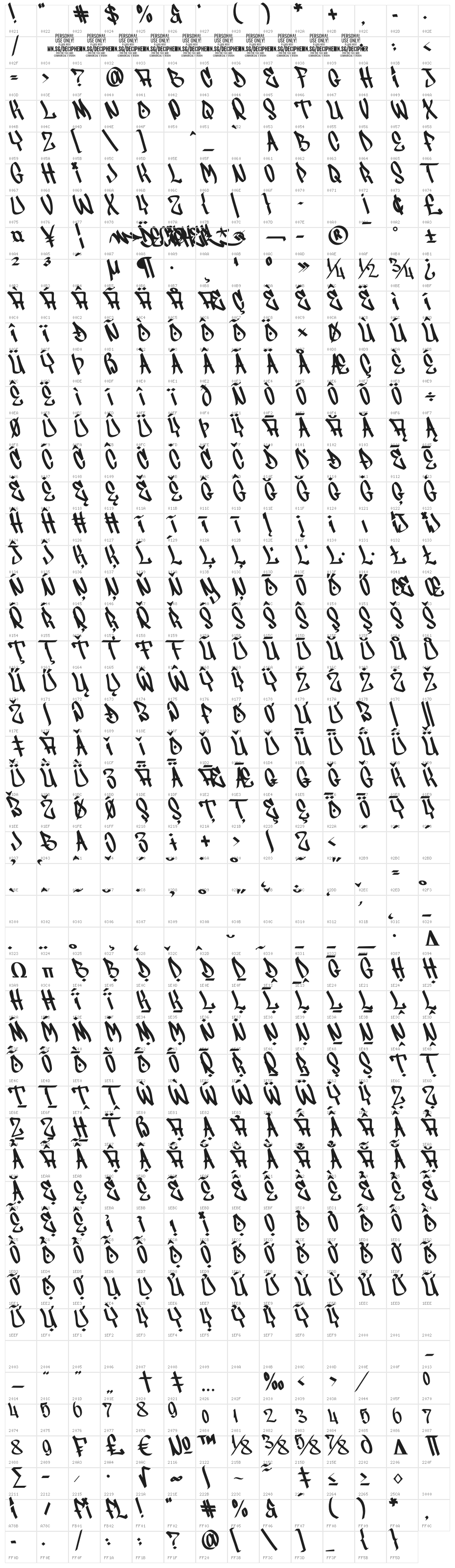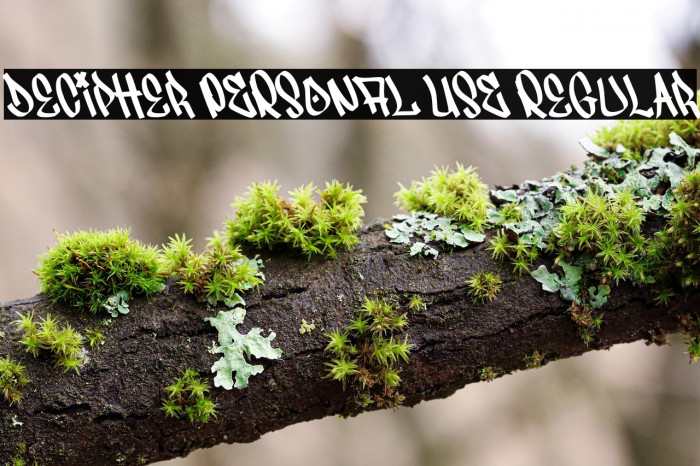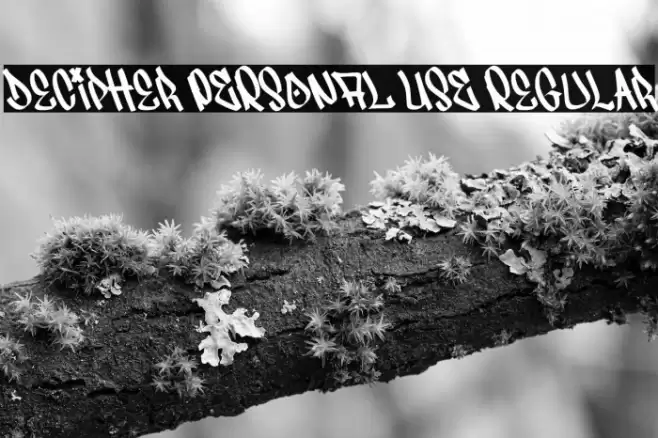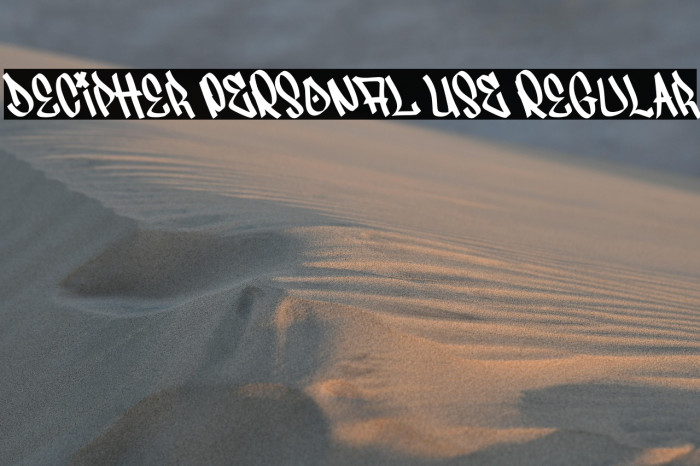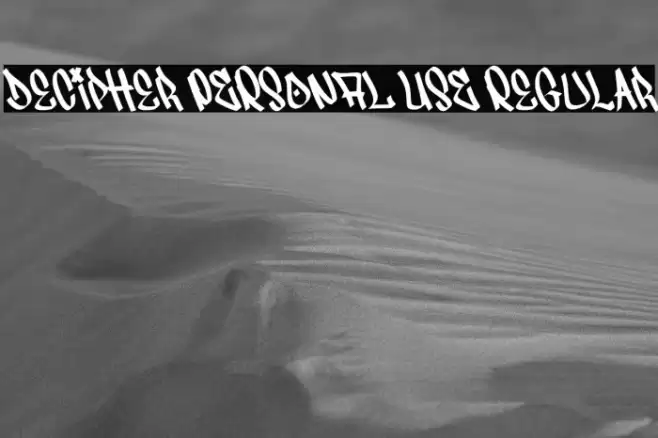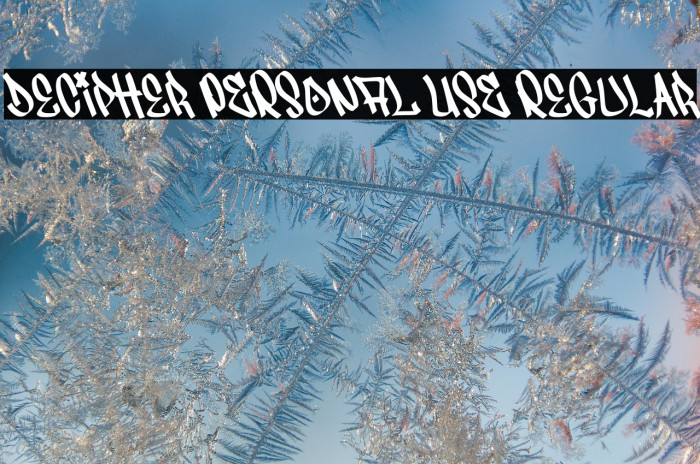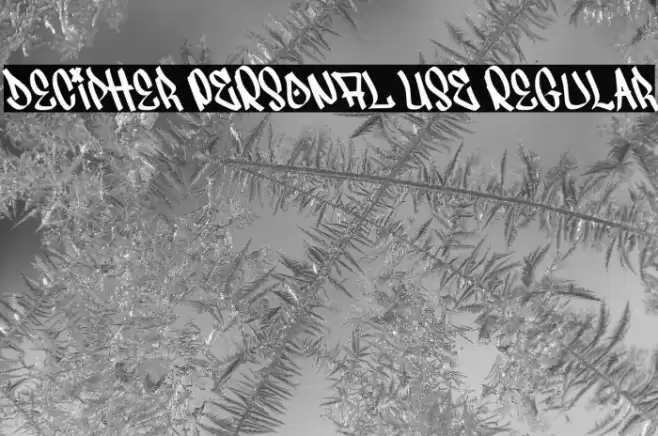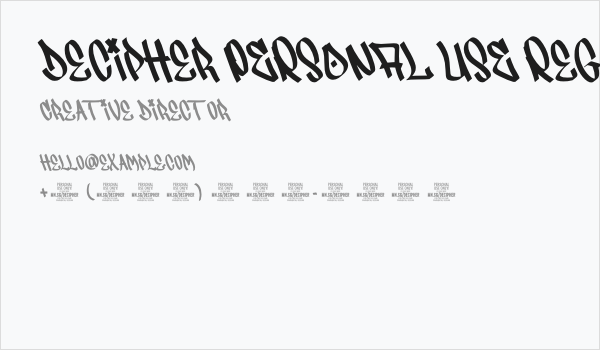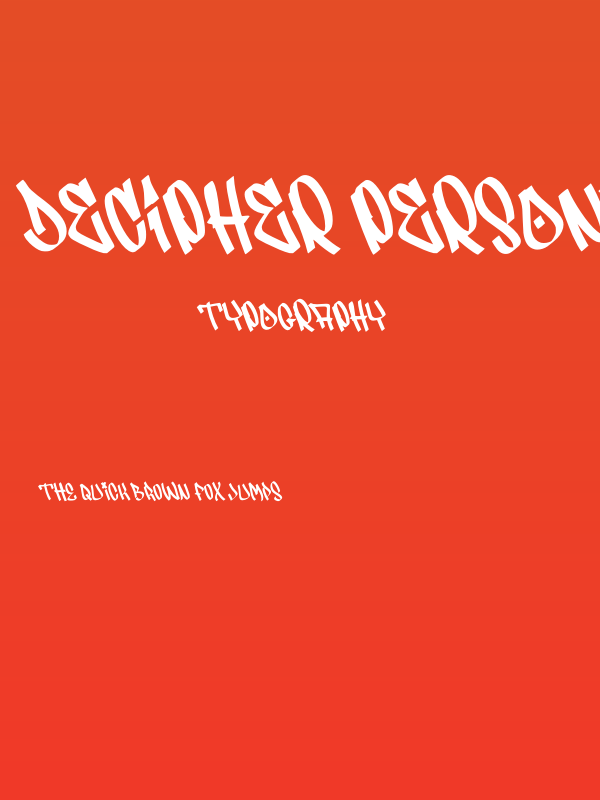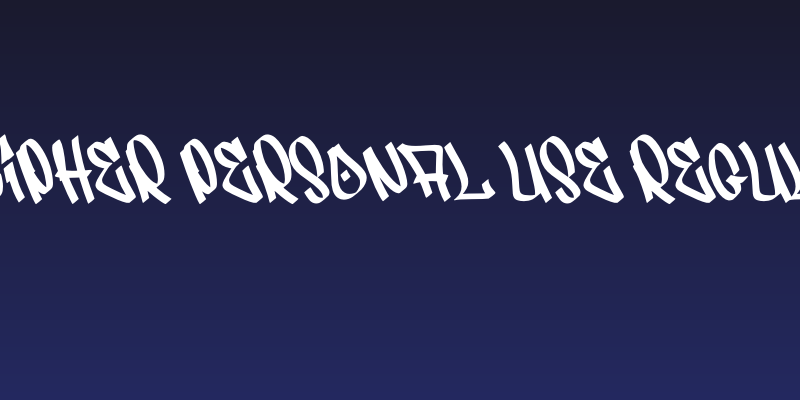
Decipher PERSONAL USE Regular Font
Decipher PERSONAL USE Regular Description
This font features a bold, graffiti-inspired style with sharp, angular lines and a dynamic, energetic appearance. The uppercase letters are particularly striking, with exaggerated curves and points that give them a sense of movement. The lowercase letters maintain this edgy aesthetic, while the numbers and special characters are equally bold and expressive. The overall look is modern and urban, making it ideal for projects that require a strong visual impact.
| Overall Style | Modern, Urban |
| Proposed Projects | Perfect for street art designs, urban-themed posters, music album covers, and edgy branding projects. |